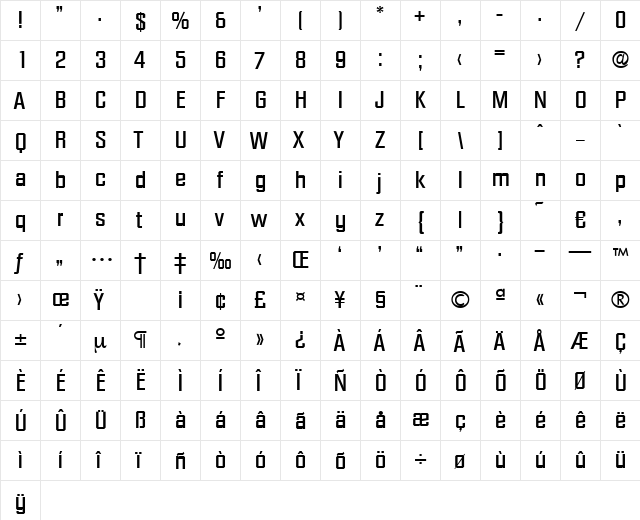
Diamante-Medium Regular
Design Context for Diamante-Medium Typeface
Diamante-Medium is a composed and adaptable typeface that performs quietly and consistently across a wide range of design contexts.